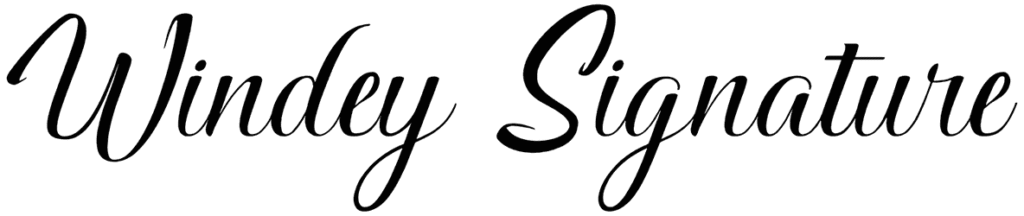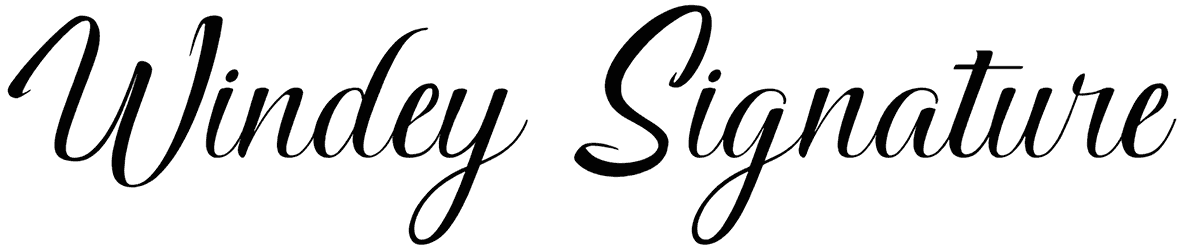
Windey Signature Font
To be honest, even at the first glance your audience will fall in love with a script font such as Windey Signature that comes with a cursive design that dances along the baseline, so we really offer you to try it in posters, invitations, gift cards, greeting cards, and product packaging that require a personalized handwritten touch.
Although this calligraphy font doesn’t support numbers, it can establish a positive atmosphere by conveying a sense of drama, dynamism, softness, and delicacy.
Windey Signature – A Modern Script Font. Giving you a simple, yet gorgeous solution to your branding. This font is another level script font. It encapsulates the essence of elegance and modernity. With its clean script-type design and curved indentations, this font will take your projects to the next level! Use it for headings, logos, business cards, printed quotes, invitations of all sorts, cards, packaging, and your website or social media branding.What’s included :